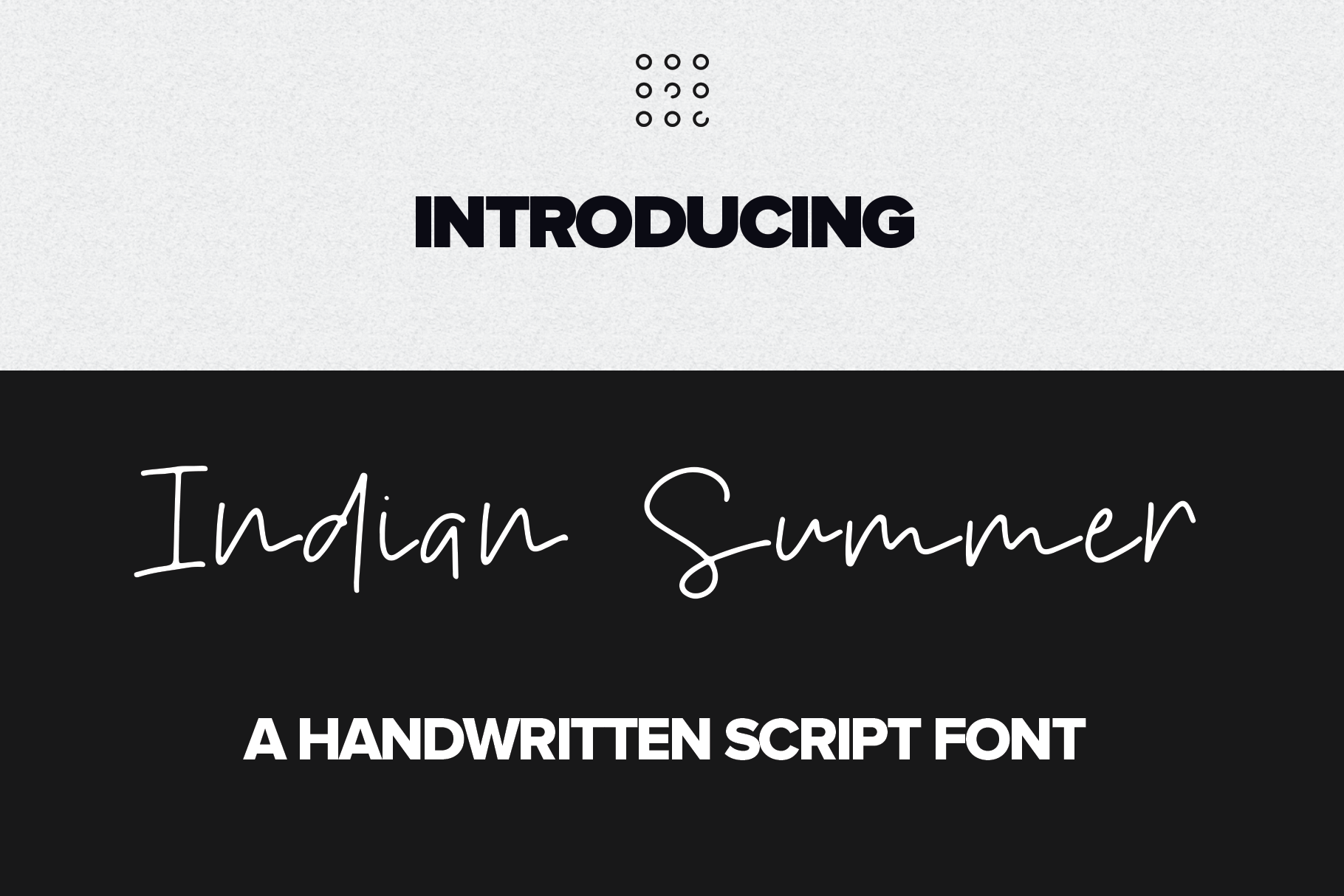
Indian Summer Handwritten font
Indian Summer is a elegant handwriting style font. You can use it for various projects such as branding design, blog headers, signatures, quotes, fashion apparel, business card, stationery and more...